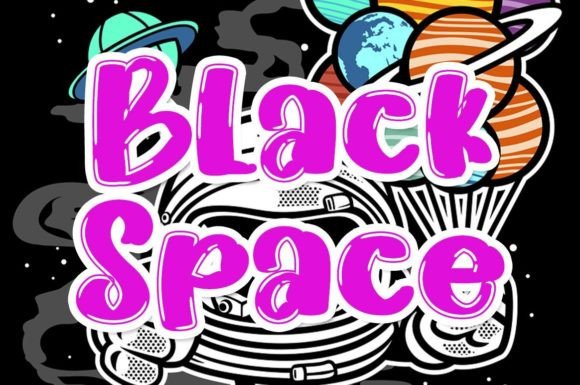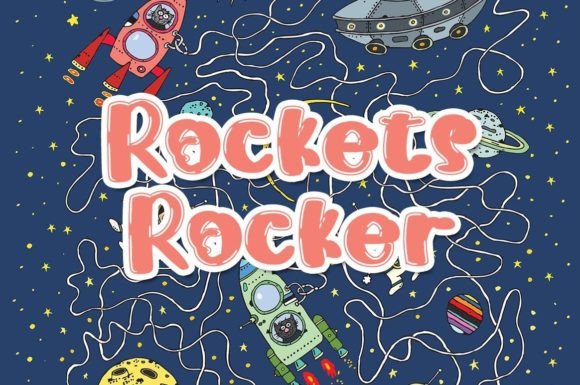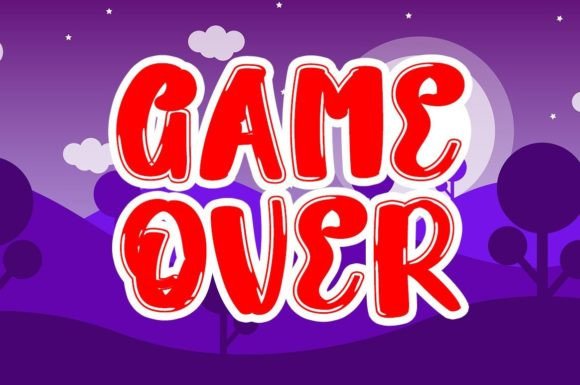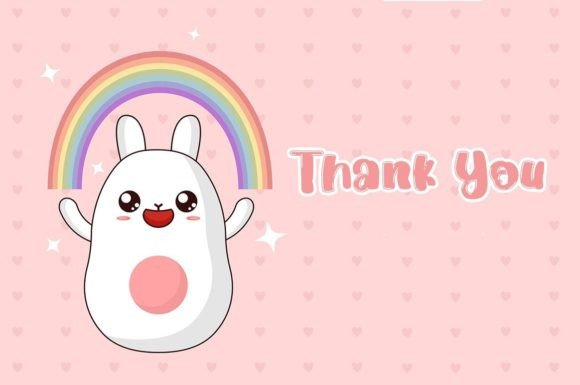
Black Space Font
About Black Space Font
Black Space is a beautiful and sweet font that exudes freshness, cleanliness, and elegance. Its charming and delightful design makes it a versatile choice for a wide range of projects, whether formal or informal. This font adds a touch of joy and sophistication to your designs, enhancing their visual appeal and creating a lasting impression.
The font’s beauty lies in its simplicity and versatility. Its clean and elegant letterforms make it suitable for various design applications, from formal documents and business materials to creative projects and personal designs. Whether you’re creating professional presentations, elegant invitations, stylish branding materials, or engaging social media posts, Black Space elevates your designs with its fresh and joyful touch.
Black Space’s appeal extends to both formal and informal contexts. In formal settings, it adds a touch of professionalism and sophistication, making your business materials look polished and refined. In more relaxed and creative projects, its sweetness and charm bring a sense of playfulness and creativity to the design, making it visually appealing and engaging.
By using Black Space, you simplify your design process, as the font effortlessly enhances the beauty of your projects. Its versatility allows you to experiment with different design elements, creating harmonious compositions that leave a positive impression on your audience. The font’s joyful touch adds a sense of warmth and friendliness to your business, making it more approachable and appealing to customers and clients.
Incorporating Black Space into your designs not only adds beauty but also communicates your attention to detail and dedication to creating visually appealing content. By choosing this font, your business materials and creative projects will indeed look more beautiful, capturing the attention of your audience and leaving a memorable impact.
So, whether you’re designing formal documents, crafting elegant invitations, developing branding materials, or working on any other creative endeavor, let Black Space be your font of choice. Its beauty, simplicity, and joyful touch enhance your designs, making them more visually appealing and impactful. Embrace the charm of Black Space and watch your projects come to life with a touch of elegance and sweetness.